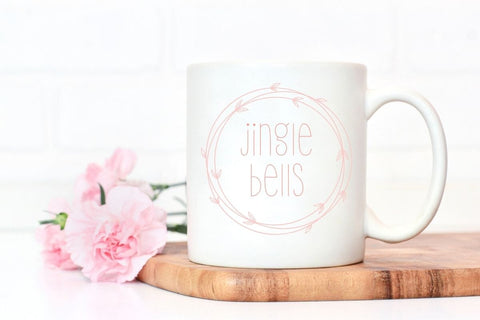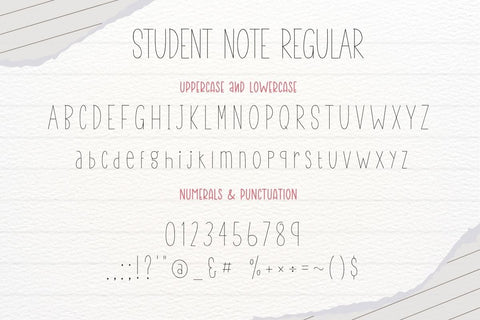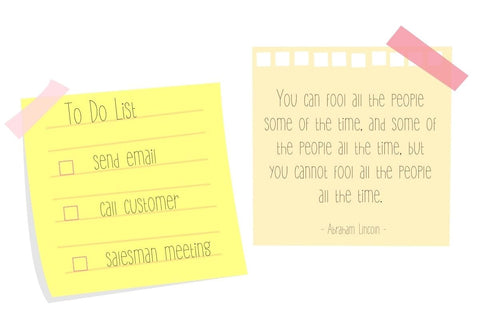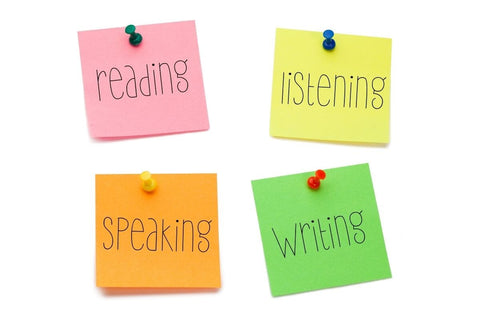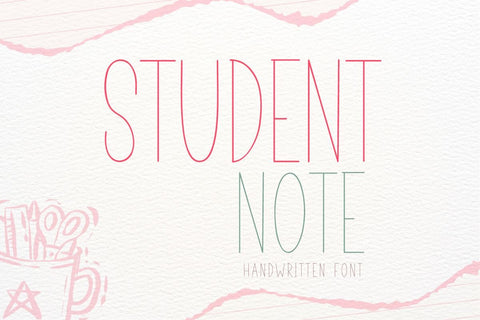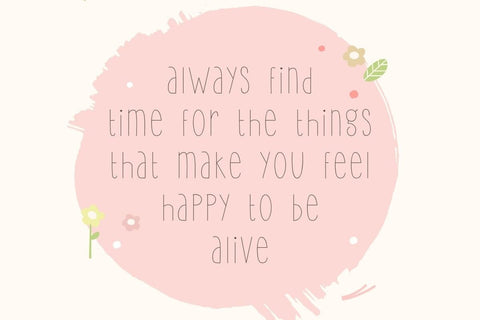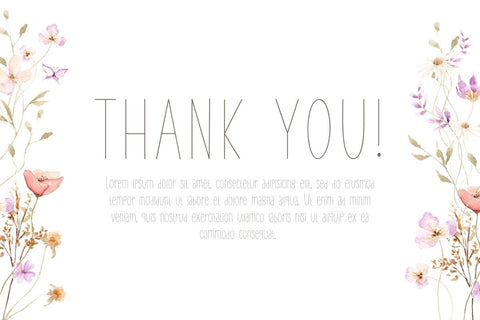
Student Note - Handwritten font
Student Note is a neatly handwritten font. You can use it for taking notes, writing a diary, or making greeting cards.